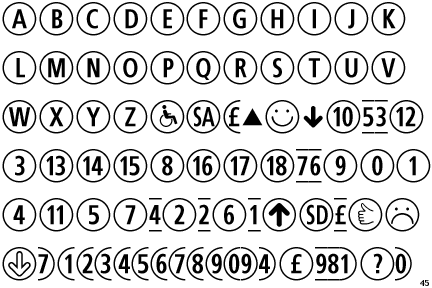
CombiNumerals Pro is the ultimate utility font for CD and DVD labeling,
web graphics, desktop publishing, instructional design, maps, signs,
surveys and more.
CombiSymbols is a collection of symbols and dingbats especially useful
to people creating computer or software documentation (especially for Mac OS
and Windows as it contains several industry and technology-specific icons and
symbols), web graphics, packaging, etc.
CombiSymbols CD is a complete collection of Compact Disc logos from the
Phillips “color” books, plus many other useful symbols and logos. This font is
perfect for people creating artwork for CDs, liner notes and packaging. Several
logos are provided for the recording industry as well as the software industry.
CombiSymbols DV is a complete collection of DVD logos, surround sound
logos, “sound mode” icons, plus many other useful symbols. Perfect for people
creating artwork, labels or packaging for DVDs and related items.